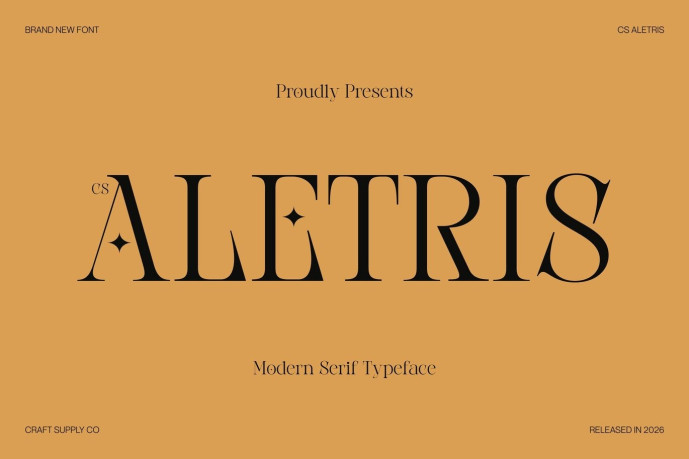
Aletris – Modern Serif Font
Designer: Craft Supply Co.
CS Aletris – Modern Serif Font: Where Graceful Serifs Meet Minimalist Elegance Graceful Long Serifs with Clean Minimal Shapes This is a modern serif font featuring graceful long serifs and clean minimalist letterforms that create a refined and contemporary visual identity. Its elegant proportions and subtle contrast deliver a sophisticated appearance, balancing timeless serif beauty with modern simplicity. Every character is carefully designed to express clarity, elegance, and effortless style.
Contemporary Design with Timeless Appeal This font offers a fresh interpretation of classic serif typography. The elongated serifs add a sense of grace and distinction, while the clean, uncluttered forms ensure excellent readability and visual harmony. This combination makes the font versatile enough for both expressive headlines and polished body display text.
Elegant Character with Professional Versatility This font communicates sophistication through its minimalist structure and refined details. Its balanced design creates a luxurious yet approachable aesthetic, making it suitable for projects that require a modern, editorial-quality appearance. Whether used in print or digital media, the font delivers a polished and memorable impression.
Perfect for Editorial, Posters, and Branding Ideal for editorial layouts, magazine headlines, posters, luxury branding, fashion campaigns, premium packaging, logos, invitations, product labels, and creative visual identities. Its graceful serif forms make it perfect for typography that seeks to communicate elegance, professionalism, and contemporary refinement.